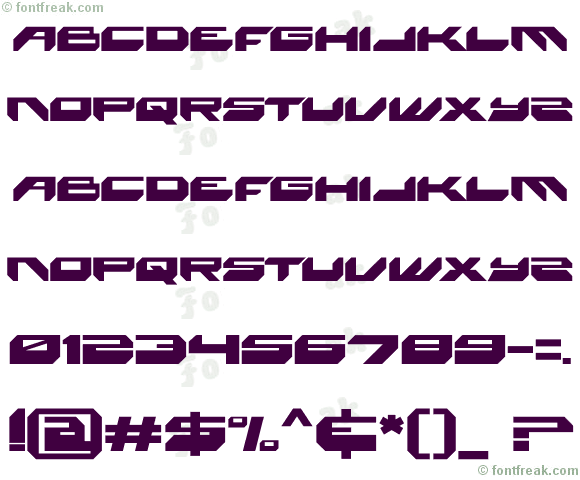
Space Monkey Bold
About Space Monkey Bold
Space Monkey Bold, crafted by MaknaStudio in 2022, is a striking display font that captures the imagination with its playful yet bold aesthetic. This decorative typeface stands out due to its unique geometric forms and pronounced stroke weight, creating a sense of modernity and fun. The characters feature sharp angles and a somewhat futuristic feel, making it an excellent choice for projects that aim to convey creativity and whimsy. The generous spacing between the letters enhances readability while allowing the distinctive shapes to shine.
Ideal for a variety of applications, Space Monkey Bold is particularly well-suited for attention-grabbing movie posters, vibrant event flyers, and engaging social media graphics. Its playful nature also makes it a great fit for children’s book covers or educational materials, where a sense of curiosity and adventure is desired. Small business owners looking to create memorable branding elements can utilize this font for logos and promotional materials that stand out in a crowded marketplace.
What truly sets Space Monkey Bold apart is its ability to blend fun and functionality seamlessly. Whether you’re crafting a bold statement piece or simply adding a touch of personality to your work, this font is versatile enough to meet various design needs. For those interested, the Space Monkey Bold font free download opens up a world of creative possibilities, inviting users to explore their artistic visions without limitations.